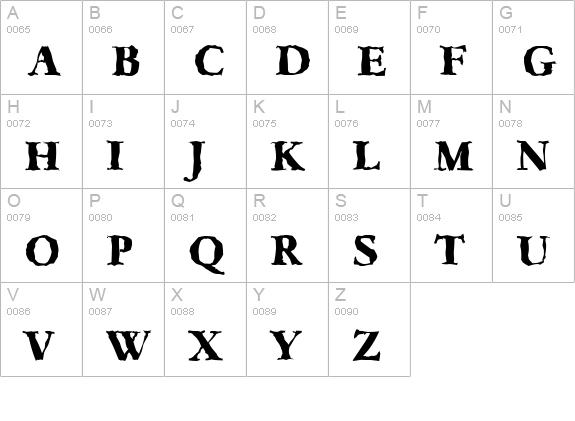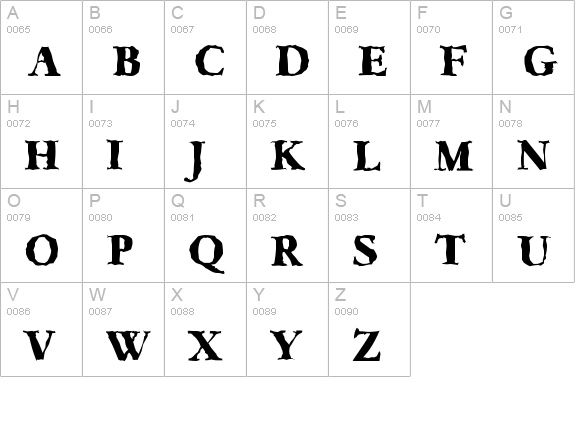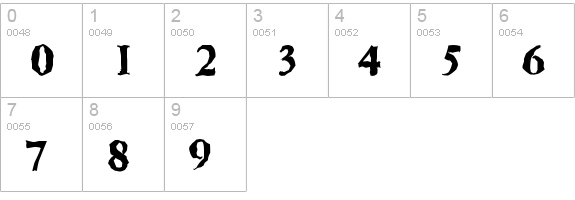
GarfeldRandom-Xbold Font Details
GarfeldRandom-Xbold font is a bold and eye-catching typeface that exudes a sense of modernity and creativity. With its unique design and striking appearance, this font is perfect for making a statement in any project. The thick, strong lines of GarfeldRandom-Xbold make it ideal for headlines, titles, and other prominent text elements that need to stand out. What sets GarfeldRandom-Xbold apart is its distinctive random pattern, adding an element of unpredictability and excitement to your designs. This font is versatile and can be used across a wide range of design projects, from posters and flyers to websites and social media graphics. Best of all, GarfeldRandom-Xbold is available for free download at FontsMarket.com. This means you can easily access this stylish font and incorporate it into your creative projects without any cost. Don't miss out on the opportunity to enhance your designs with the bold and captivating GarfeldRandom-Xbold font today!